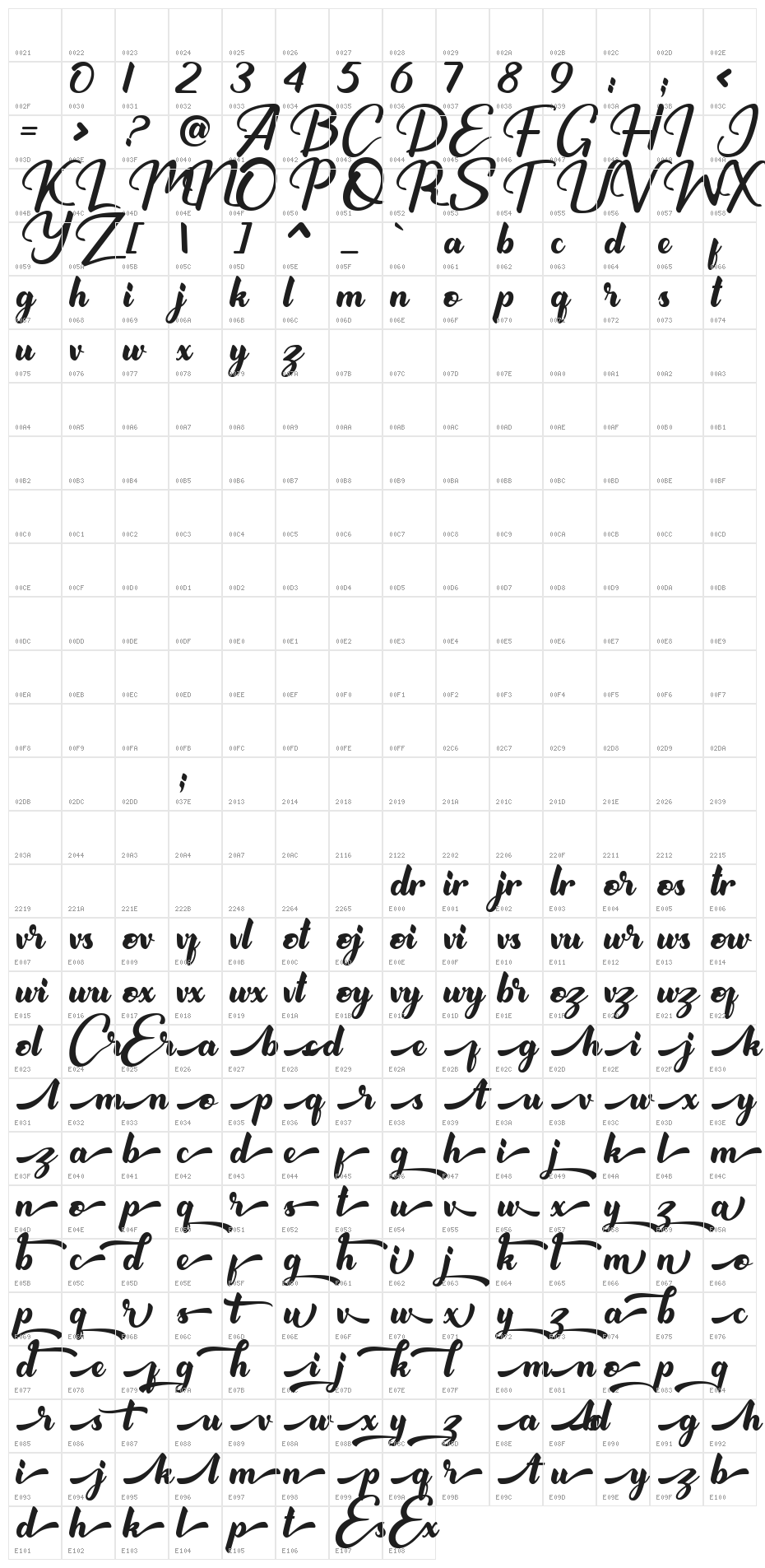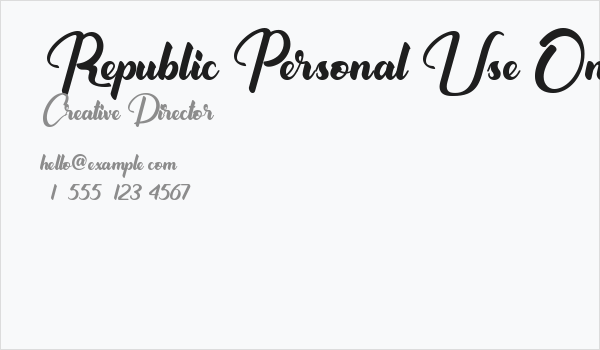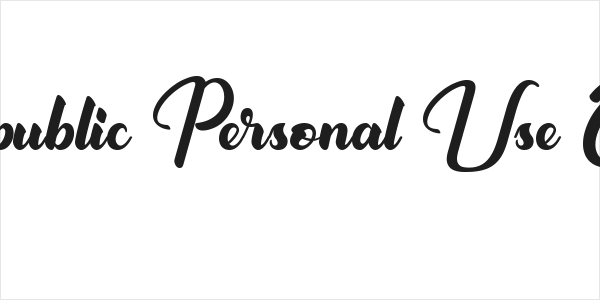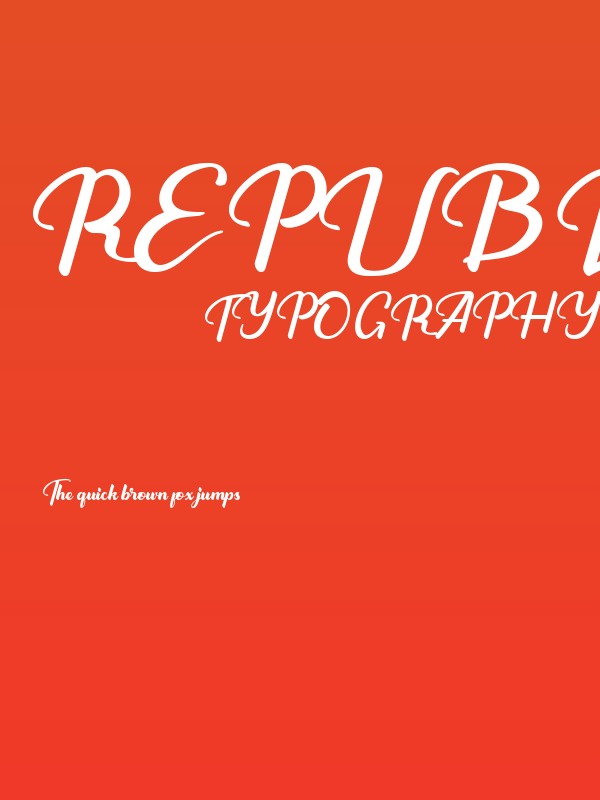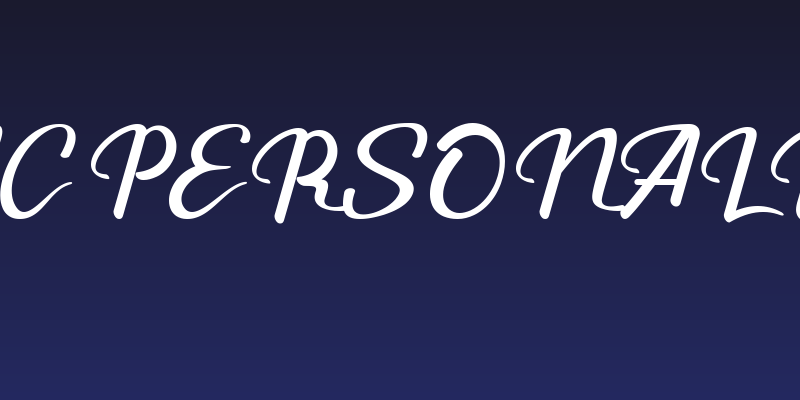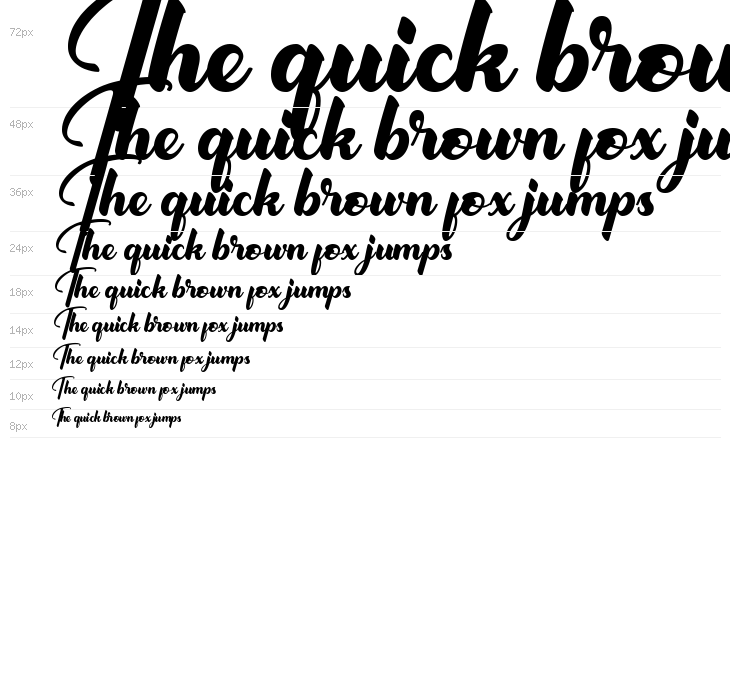
Republic Personal Use Only Font
Republic Personal Use Only Description
This font exhibits a dynamic and flowing script style, characterized by its elegant, cursive letterforms. The uppercase letters are slightly slanted, with smooth curves and a consistent stroke width that gives a sense of fluidity and grace. The lowercase letters are bold and rounded, maintaining a harmonious balance with the uppercase set. The numerals are designed to match the overall style, featuring similar curves and a bold presence. The special characters blend seamlessly with the rest of the font, ensuring versatility in various design contexts. This font's aesthetic is both modern and classic, making it suitable for a wide range of applications.
| Proposed Projects | Ideal for wedding invitations, branding, logo design, and elegant stationery. |